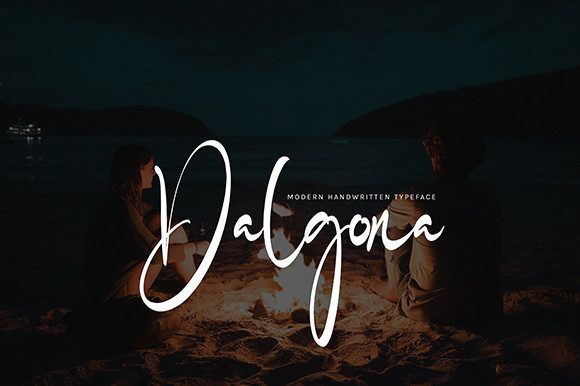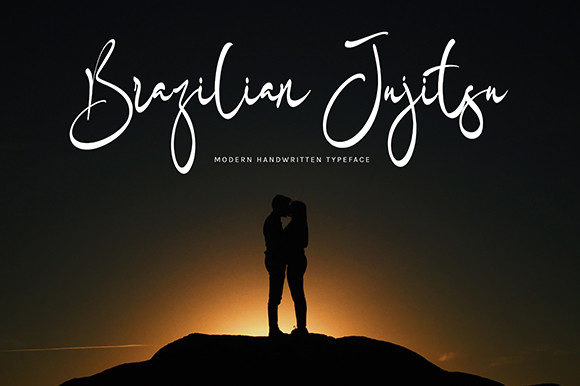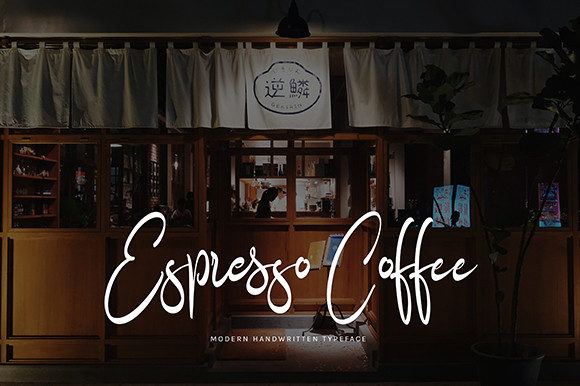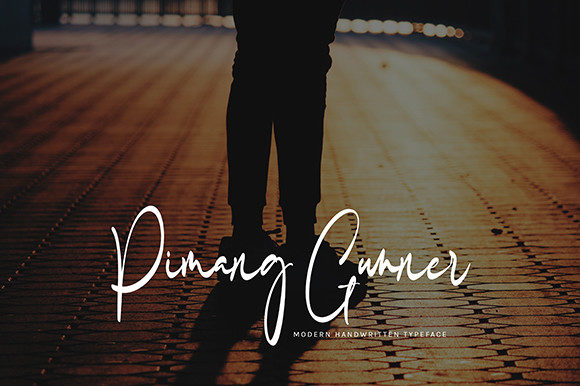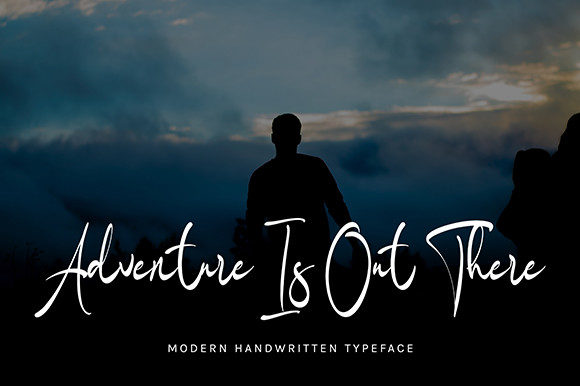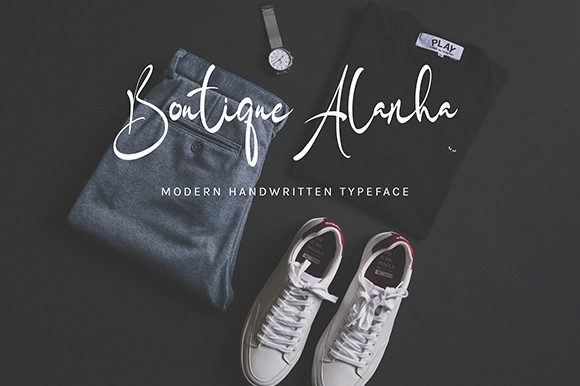
Jyemora Font – Free Download
Introduction to Jyemora Font
Jyemora is a delicate and script font.
| 👤 Author | Pineungtype & Missinklab |
It will be perfect for many different projects such as quotes, logo, blog header, poster, banding, letter, invitation, stationery, and more This font is PUA encoded, which means you can access all of the glyphs and swashes with ease.
Key Features of Jyemora Font
Why Choose Jyemora Font?
Jyemora Font offers exceptional quality and versatility, making it a valuable addition to your design toolkit. Whether you’re creating for personal projects or commercial use, Jyemora Font delivers professional results.